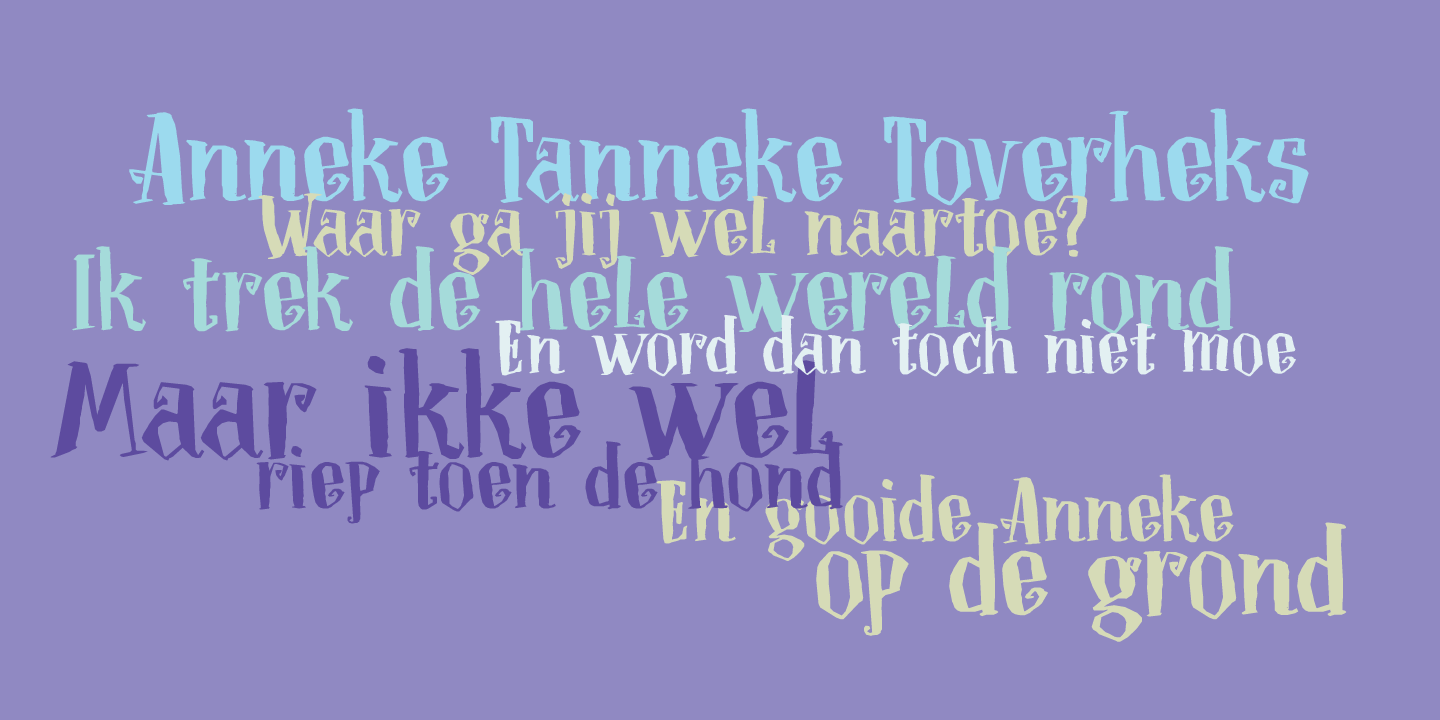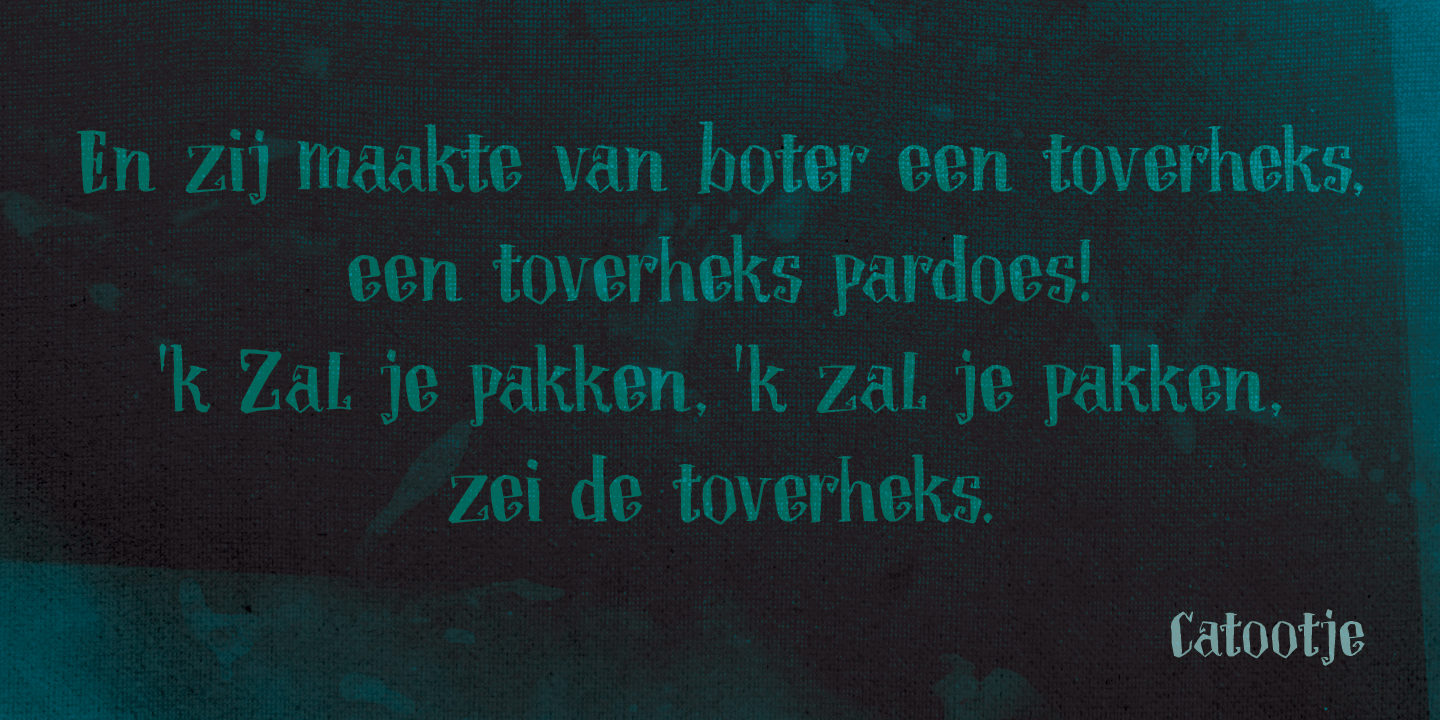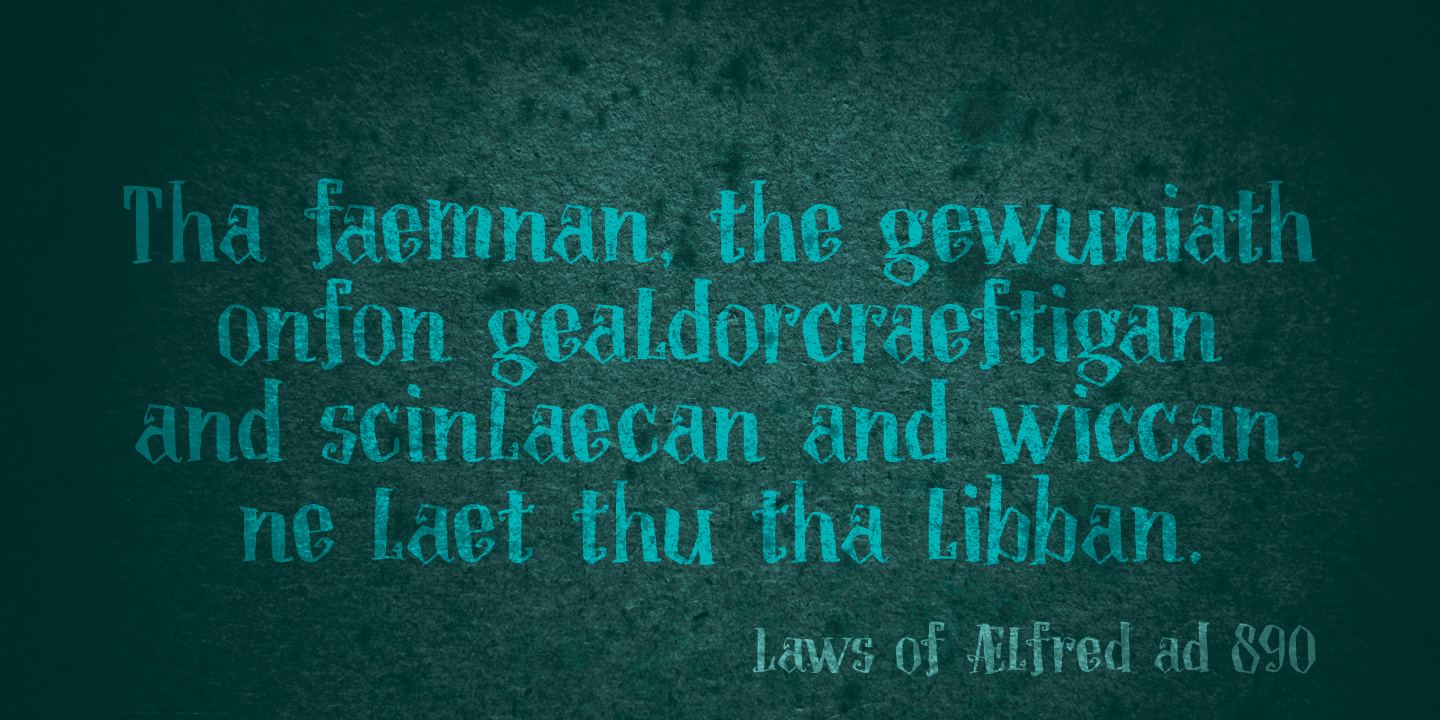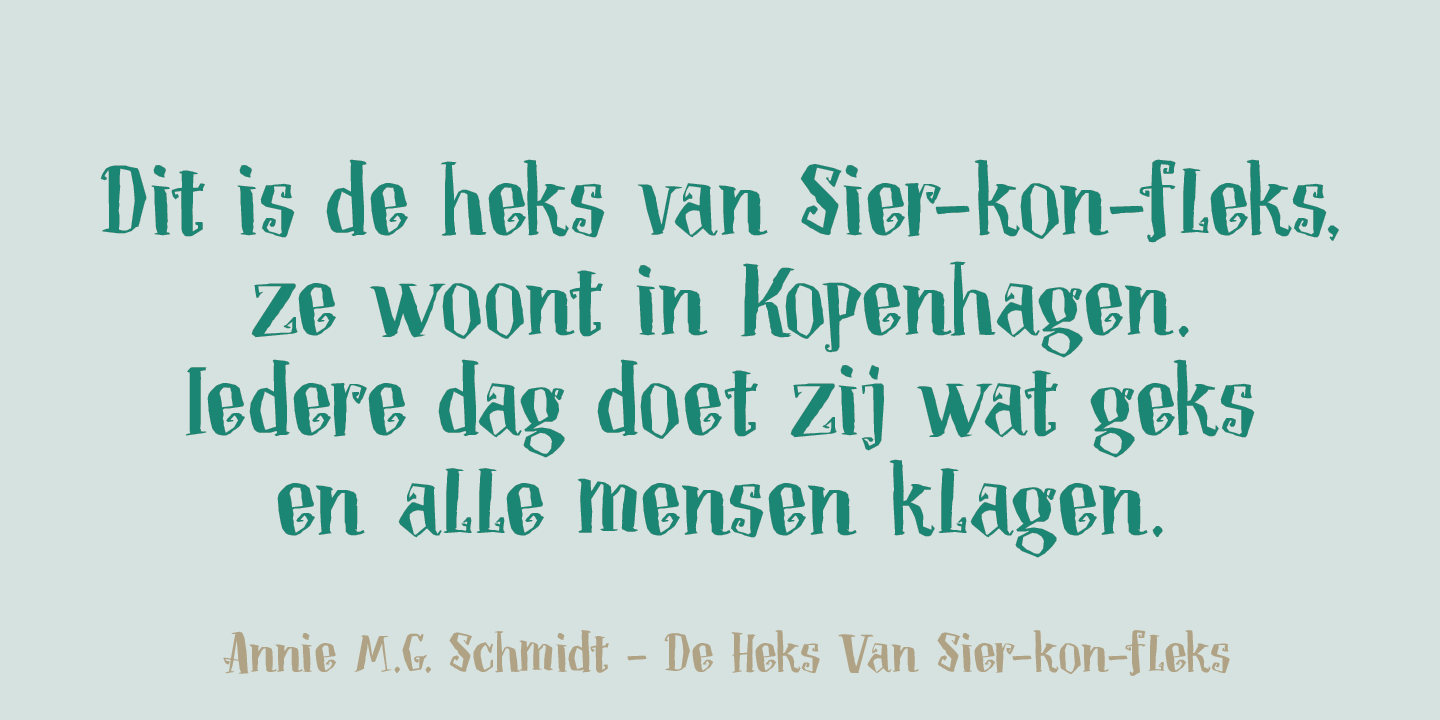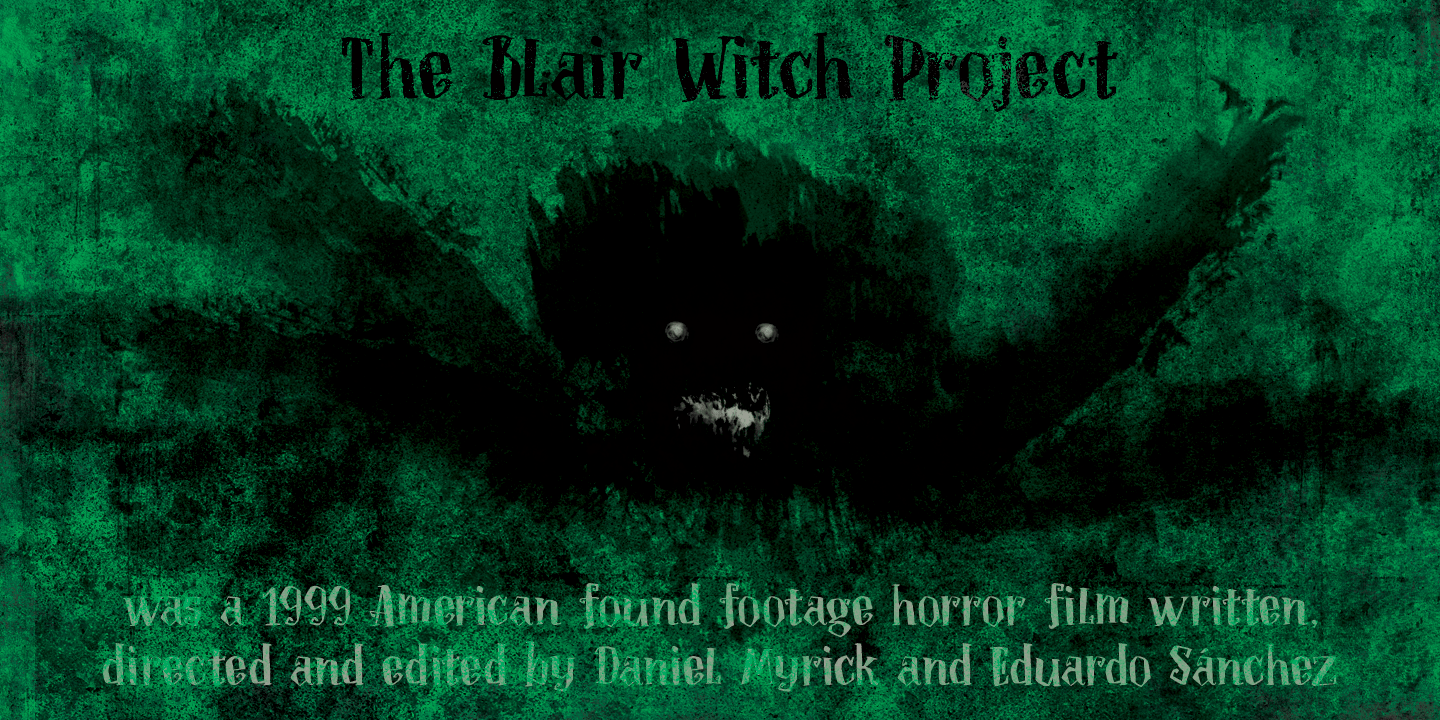
Toverheks
A Toverheks in Dutch means 'witch' - well, actually it means 'magic witch' (it doesn't translate well). The reason for this kind of weird name is the nature of the font: it reminded me of a book of spells - the kind witches use. Toverheks is a didone-ish style font with some jagged edges and curly curls. It would be ideal for books (about witches, say) or posters or even postcards! Toverheks will leave you spellbound and bewitched. Comes with a kettle full of diacritics.
Toverheks by Hanoded